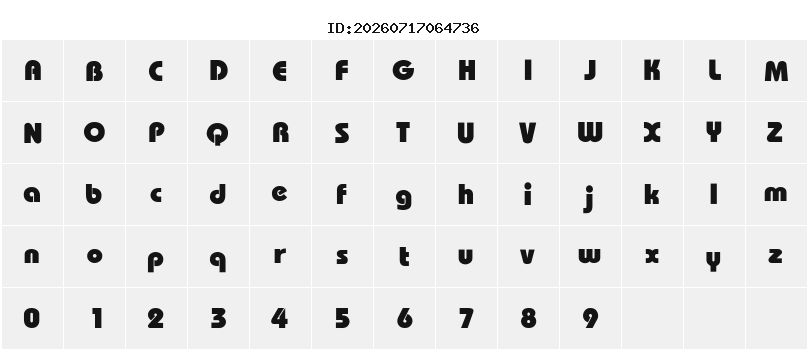
• Font Name: Brookhouse Bold
• Full Font Name: Brookhouse Bold
About Brookhouse Bold.ttf
Brookhouse Bold.ttf is a modern, elegant sans-serif font designed for ultimate readability and visual harmony. Perfect for branding, headlines, web design, and print materials.